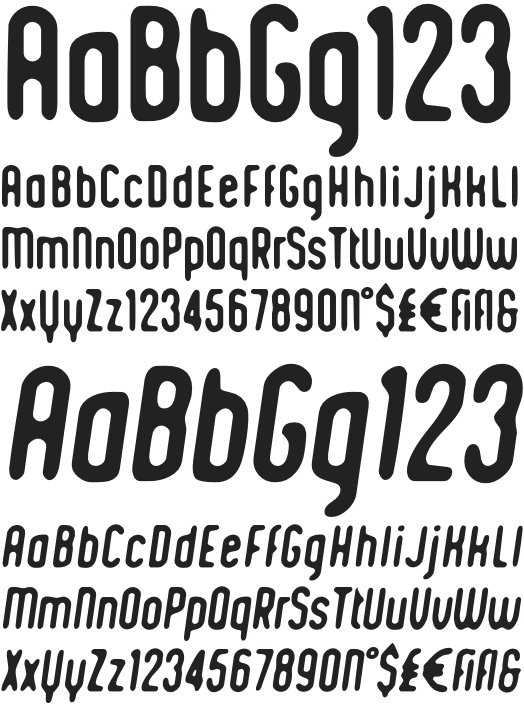
Bordello Family Pack (2 fonts)
From Kustomtype
Bordello is a clever sans serif 2-font family in regular & oblique styles. Both styles include a full upper case and lower case.